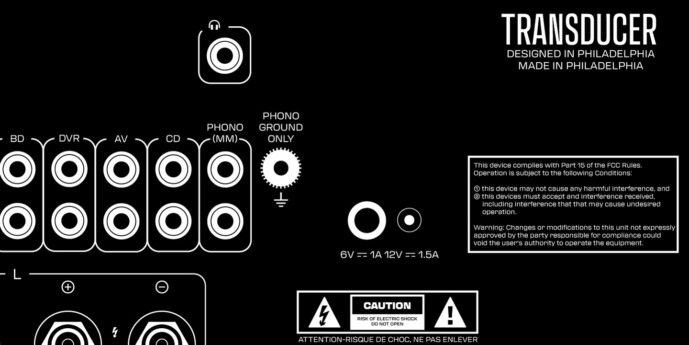
Transducer Font Family
Designer: ames Todd
Turntables, CD players, tube amplifiers, Gemini rockets, CRT screens, helical scan videotape. There was a time when technology wasn’t nearly as seamless as purports to be today. Things were big. They had a noticeable presence and left an impression. Vacuum tubes glowed, turntables popped, videotape distorted. Everything had a learning curve and required a manual. Interfaces were an array of labeled dials and switches. It’s from that history that Transducer took its cues.
It’s no shock that the result is a squarish sans serif typeface—a style that is ubiquitious with electronics. What Transducer seeks to do is add some humanity; to capture the feelings of the old equipment—the hums and the distortion of a hand-soldered circuit board.
Some of the quirks typically associated with this style have been changed to aid legibility. The traditional modernist approach of attempting to make every letter as similar as possible to every other letter has been lessened here (compare the lowercase t in Transducer with the t in Microgramma). A high x-height helps make it easier to read at a glance—a necessity when designing for interfaces and diagrams. It also comes in a large array of weights and widths. In its attempt to be more humanist and incorporate the pops and hums of analog equipment, also eschews perfectly straight vertical lines. The vertical strokes feature a nearly imperceptible tapering towards the middle—a nod back to imperfections found in and on the equipment which inspired the typeface. Finding the balance here was critical to the whole typeface; too much taper and it would lose its mechanical roots, too little and it would feel to sterile. I should have kept track of the hours spent pivoting from one side to the other (and the subsequent corrections that needed to take place across the whole typeface after an adjustment was made). This gives a slight warmth to the typeface, something lacking from most of its brethren.